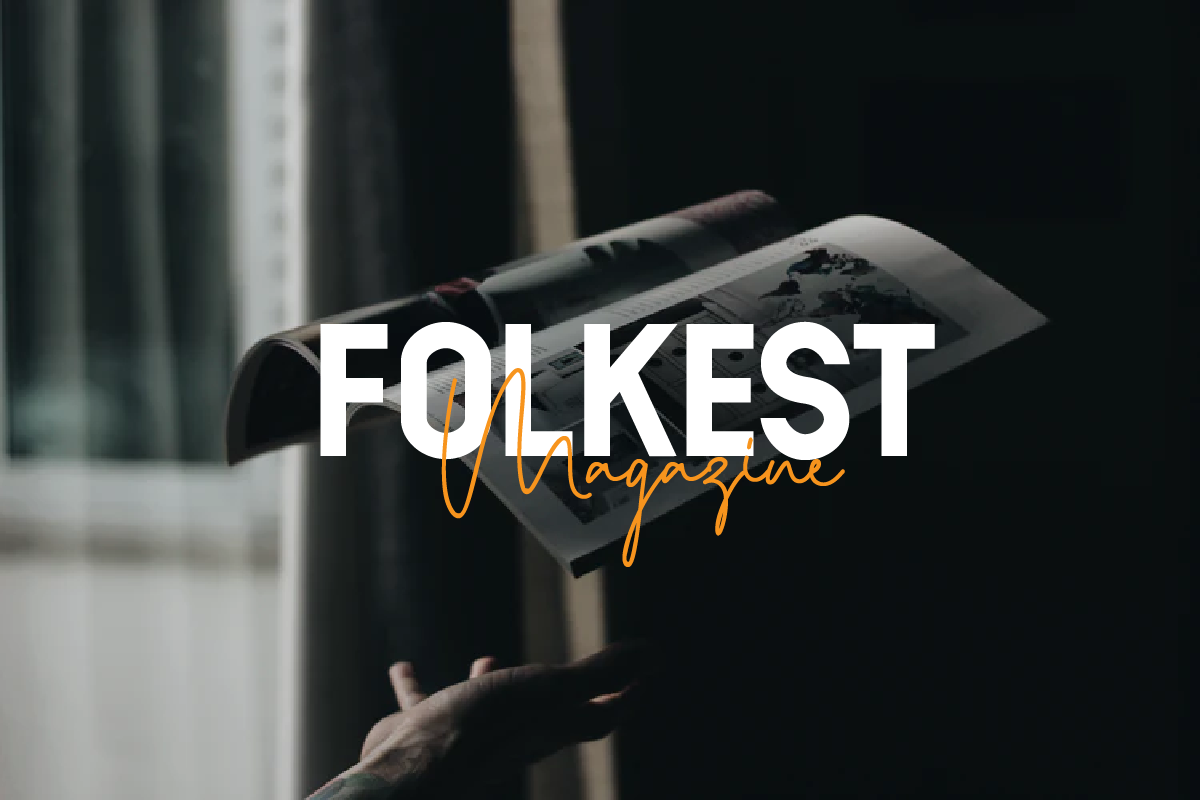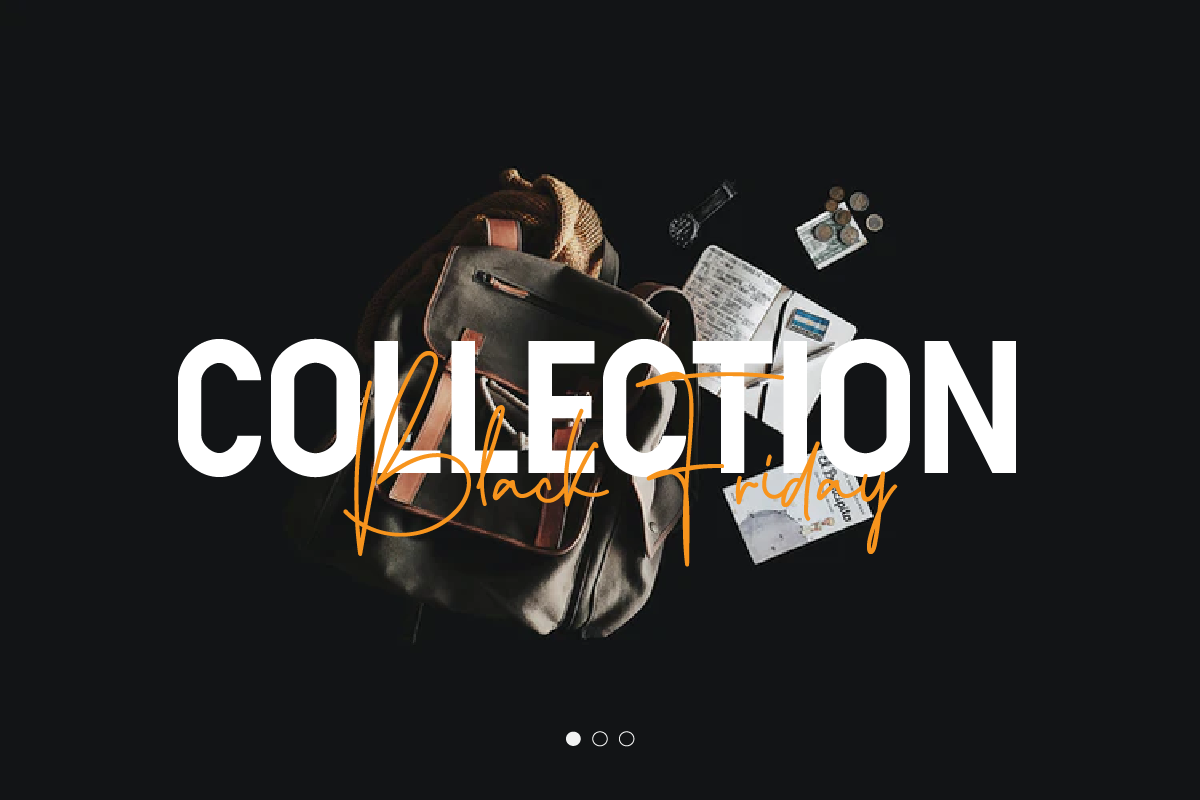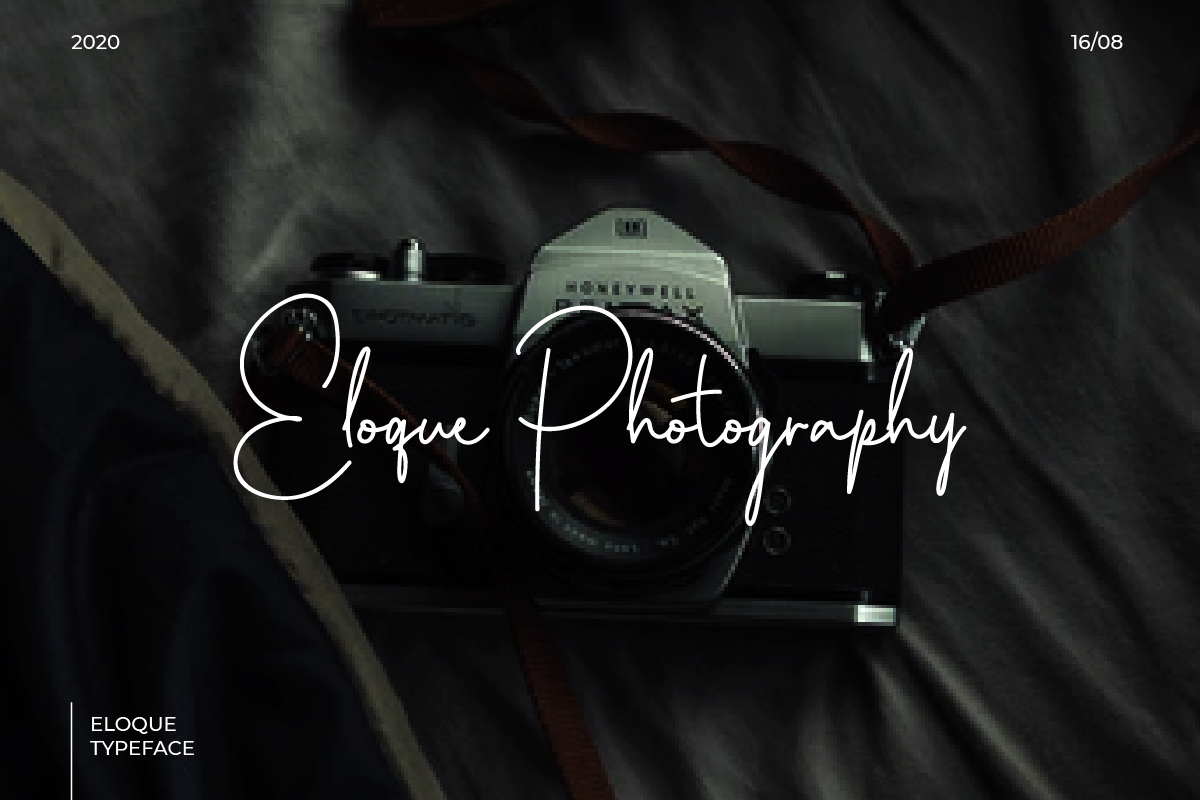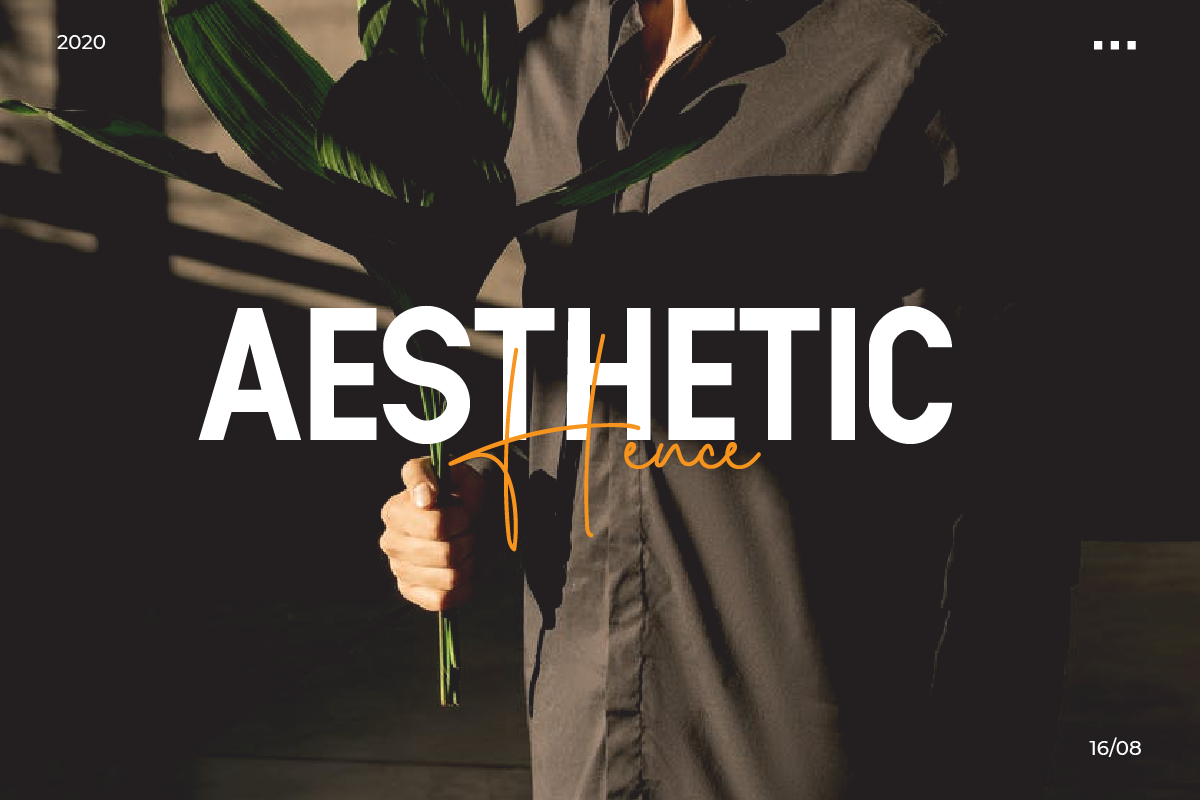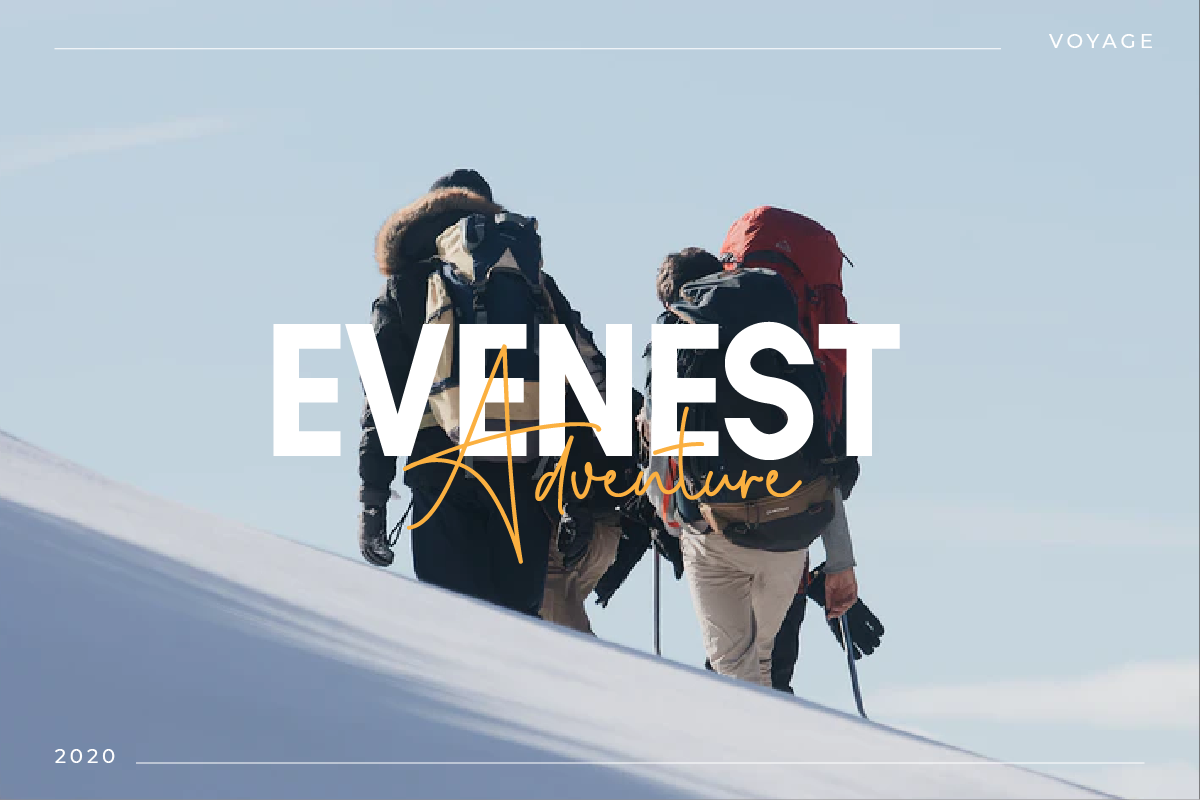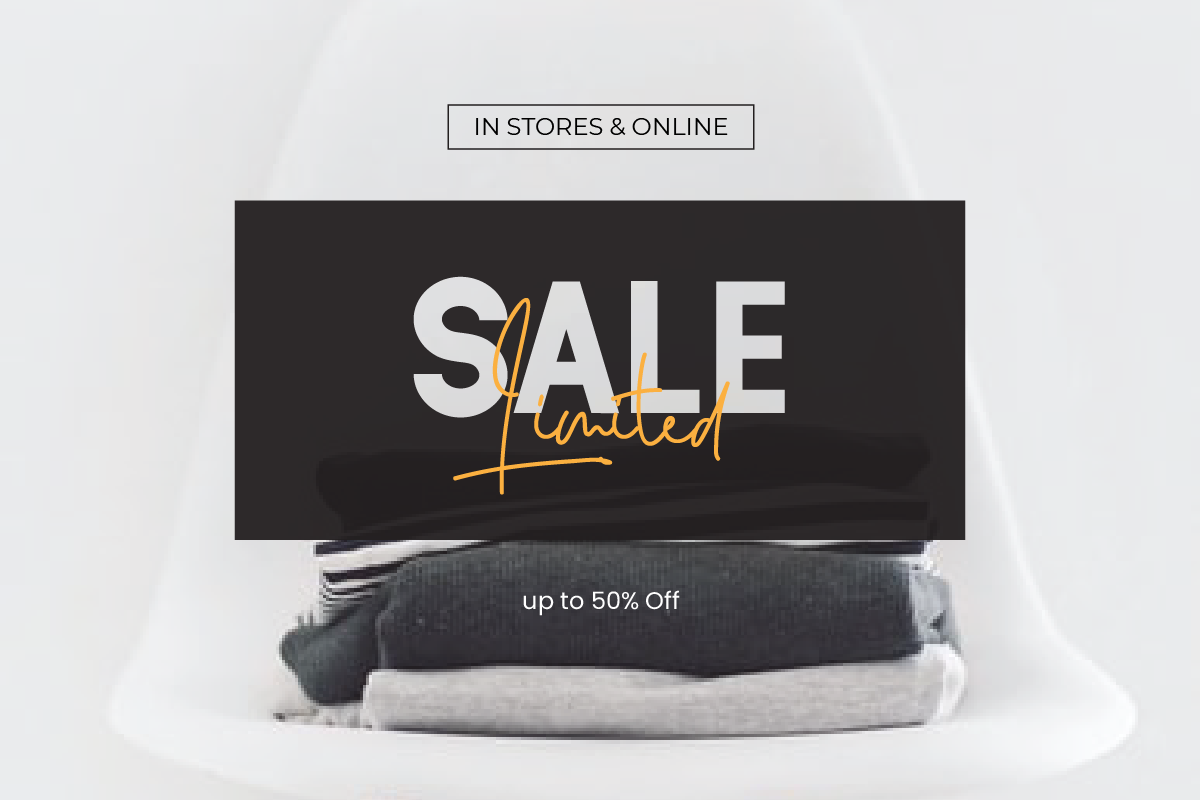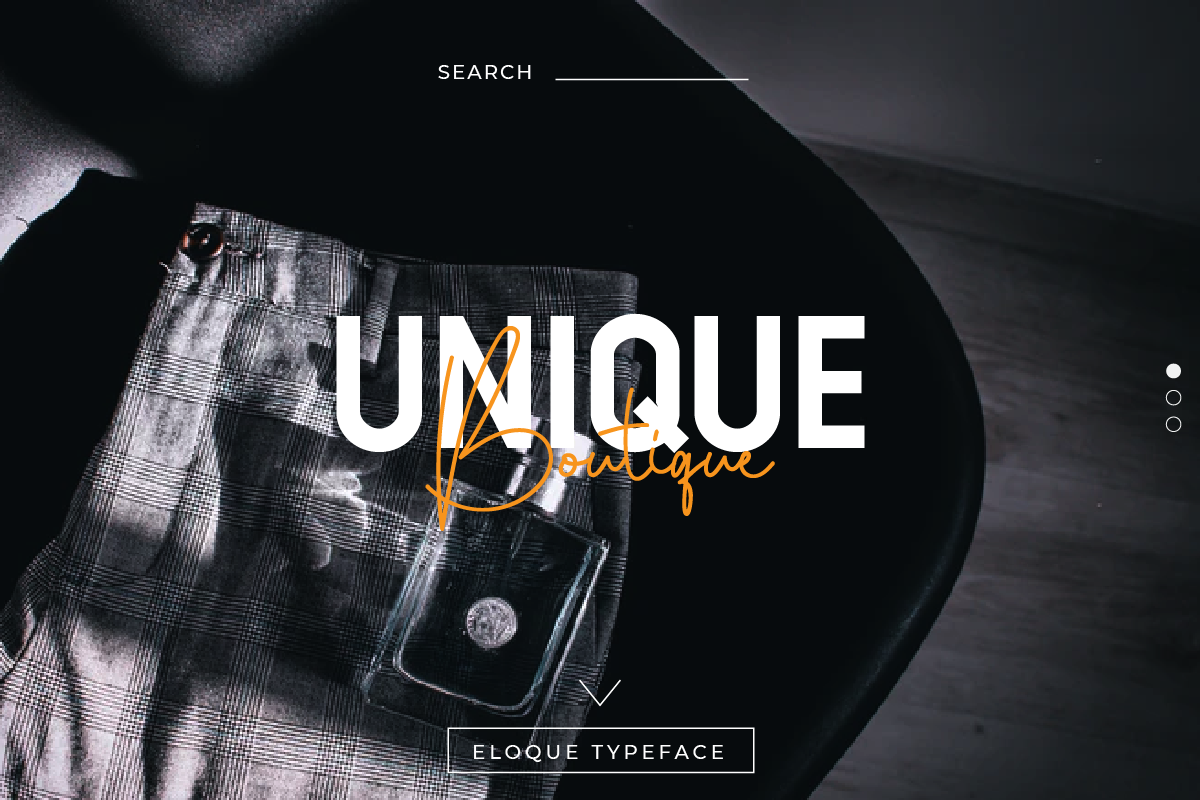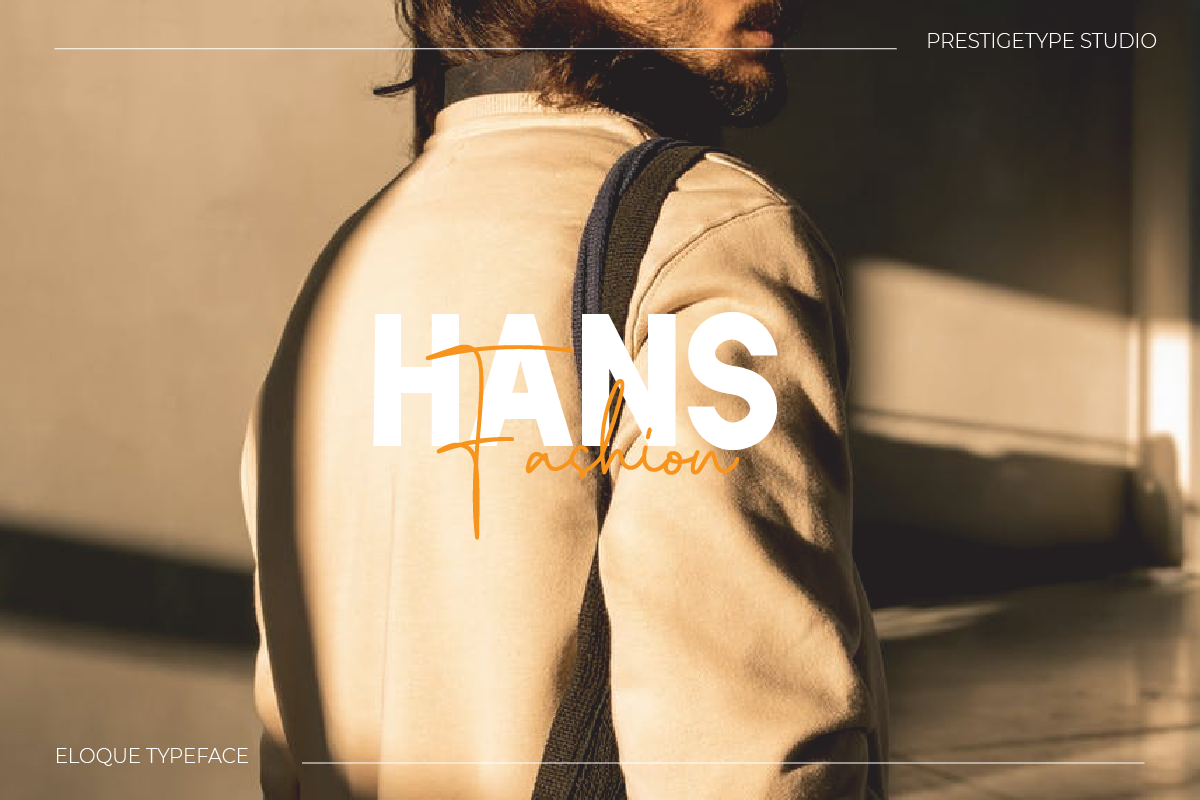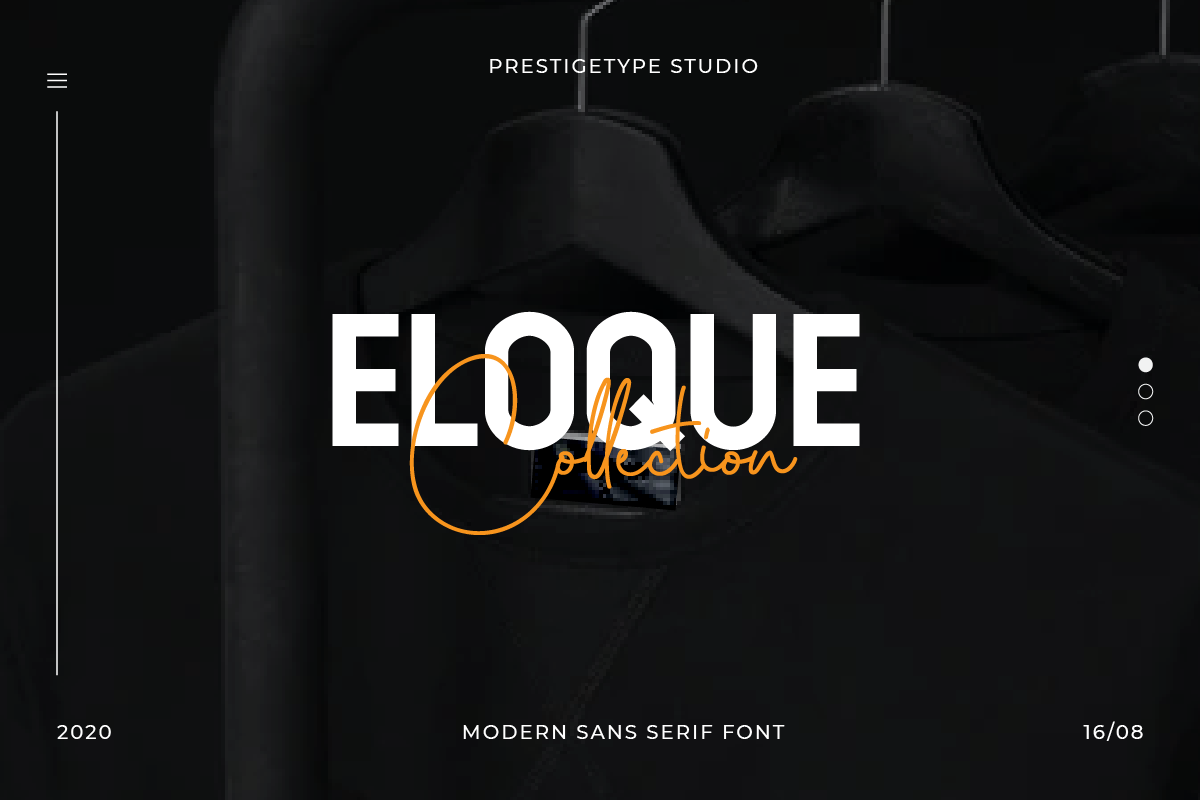
Eloque - Modern Font Duo
The power of a bold and strong personality of visual brand identity is that it can convince the target audience of the brand's value. In creating a strong visual identity, the brand must pay attention to every aspect of the element, one of which is the typeface. As for the solutions in finding the exact typefaces with strong characters, we created Eloque Typeface. This model is a brand new design with a modern, stylish, and bold accent that shall fabricate a more emphatic character personality. These fonts are designed to pair harmoniously, perfect use for visual brand identities and personal identities such as logos, headlines, titles, labels, stationery, social media, business cards, or any advertising purposes.
Eloque includes:
- Sans serif and script font style